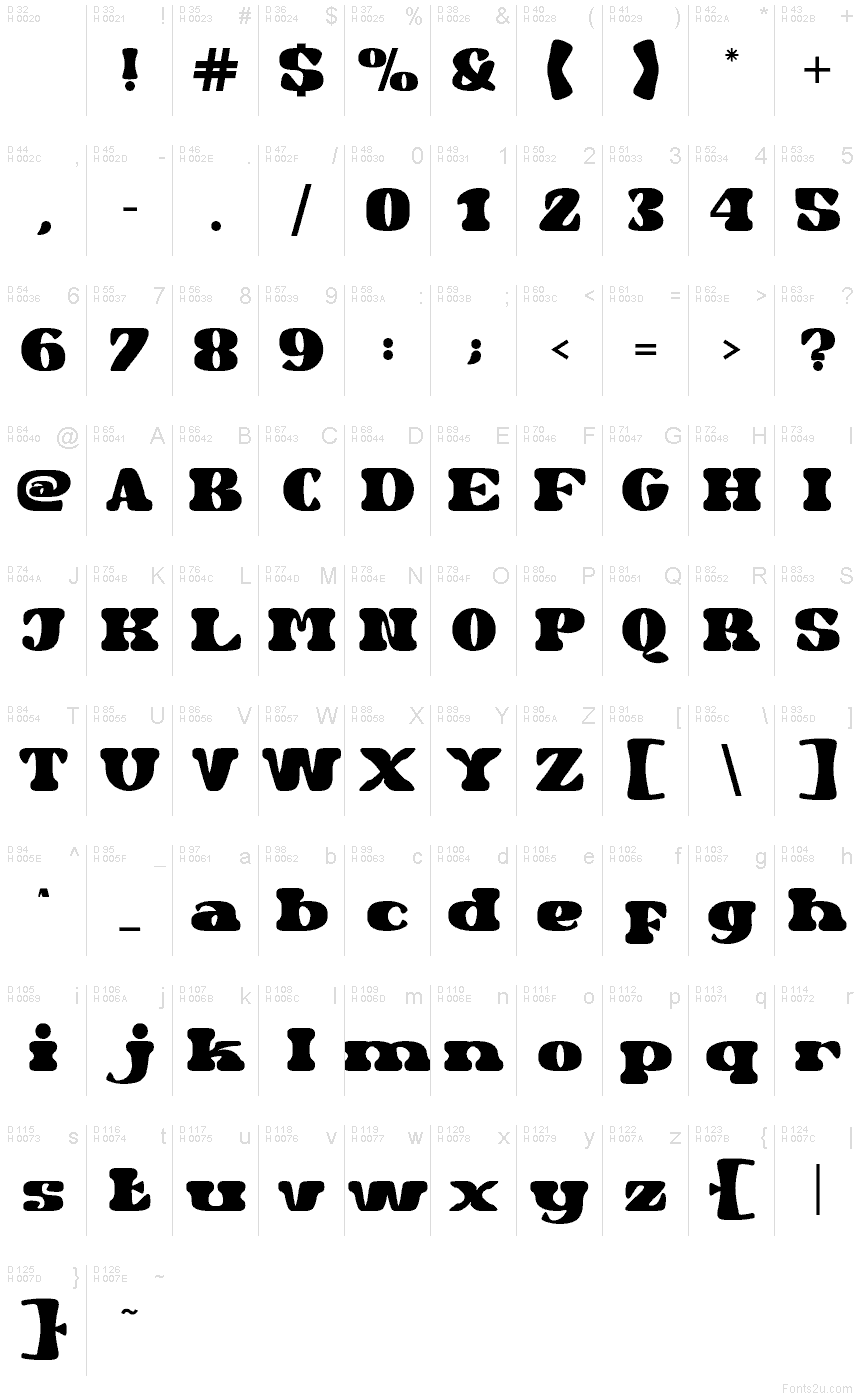
Antia Notario
Antia Notario font by PutraCetol Studio is a bold expanded display font with a fully artistic and very decorative design. It’s retro, expressive, has high contrast and an overall nostalgic old-school feel. But while the style looks familiar and nostalgic, it does have a modern touch which makes it perfect for today’s digital projects.